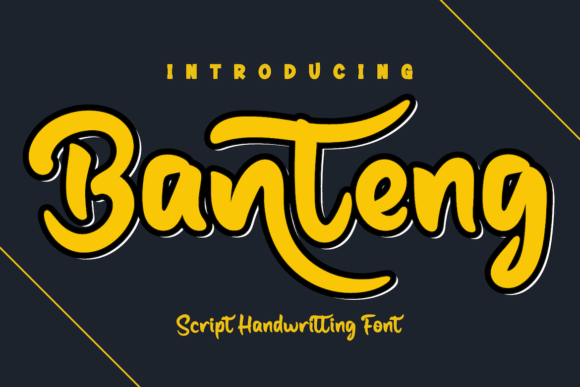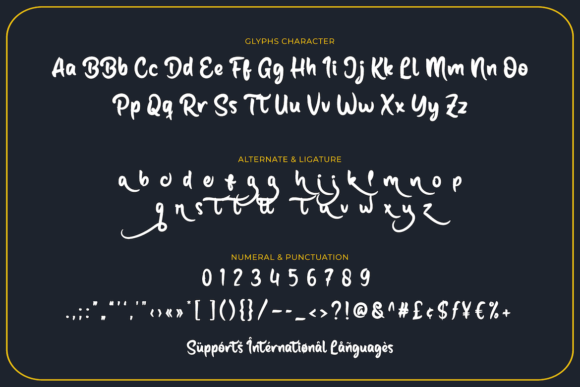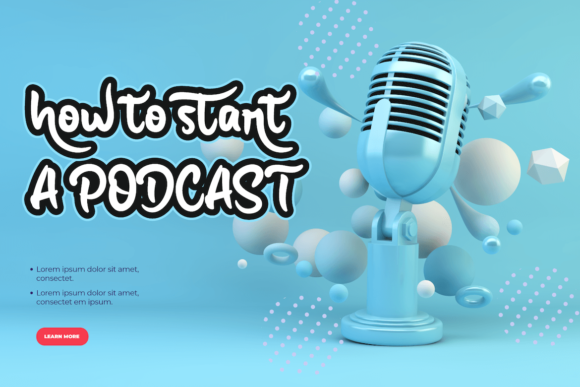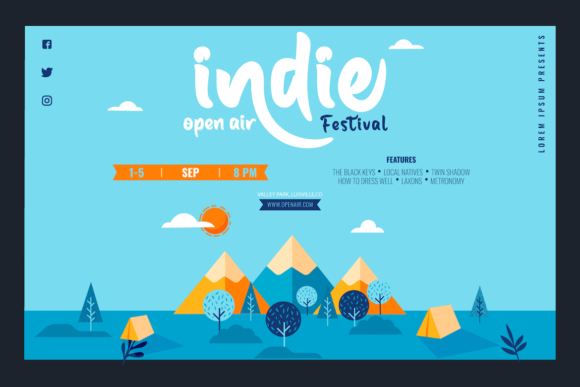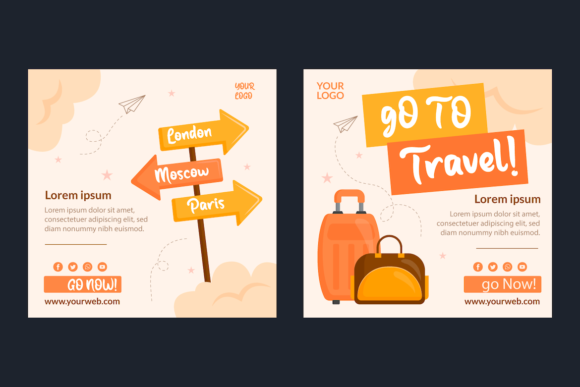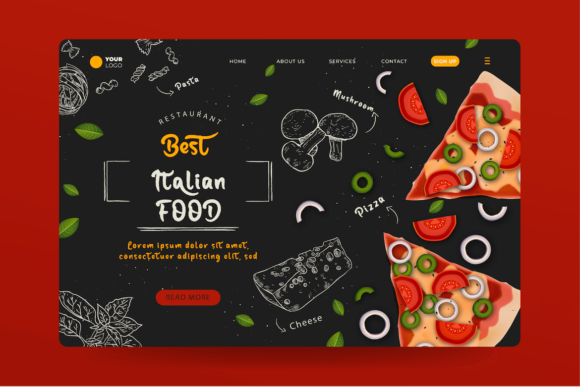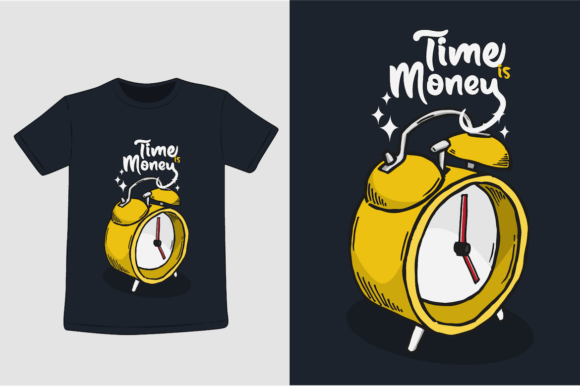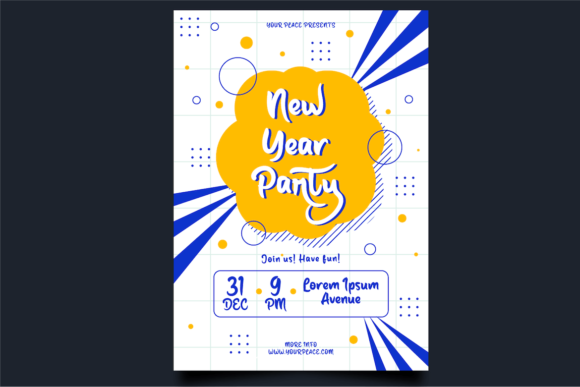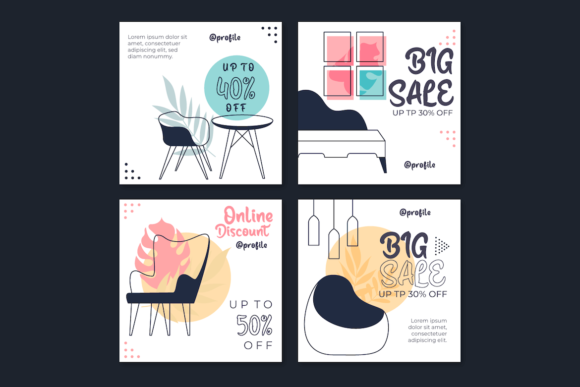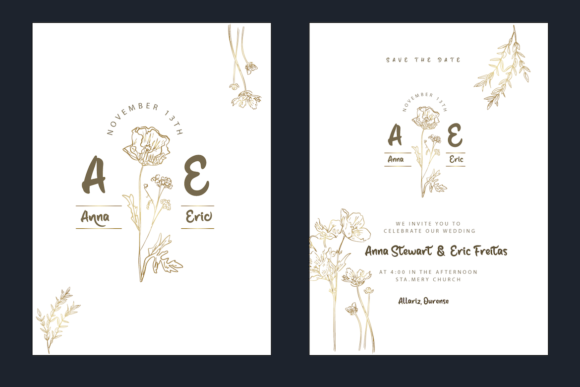
Banteng Font
About Banteng Font
Banteng is a cute and trendy paint brushed handwritten font. Add to each of your party invitation, swimming gathering or pretty much any design that requires a touch of youth and joy.